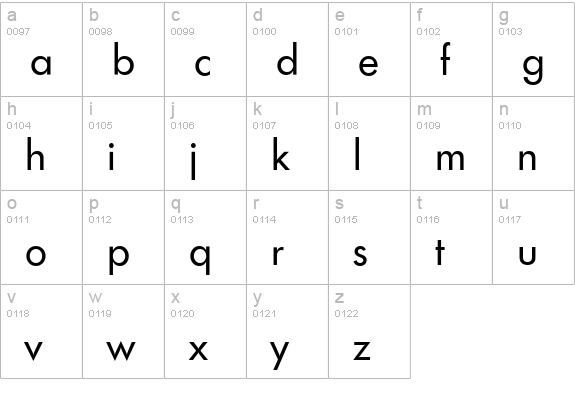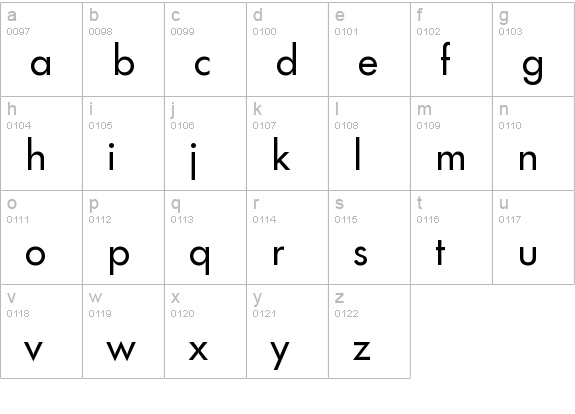
LimerickSerial-Regular Font Details
LimerickSerial-Regular is the standard, neutral variant in the LimerickSerial typeface family \xE2\x80\x94 well suited to general body text, paragraphs, and standard typographic work.